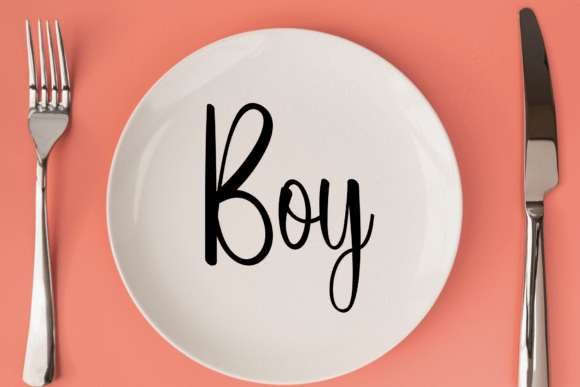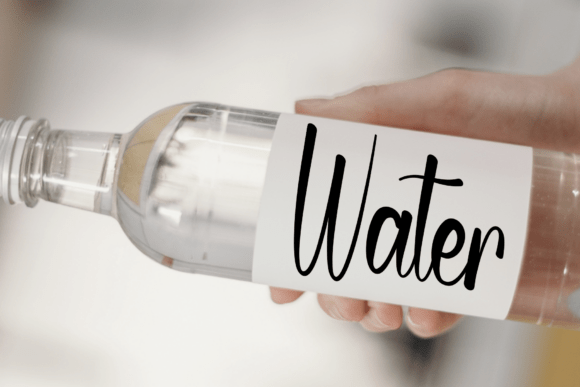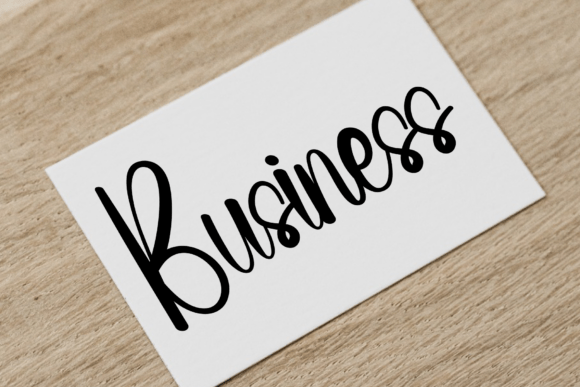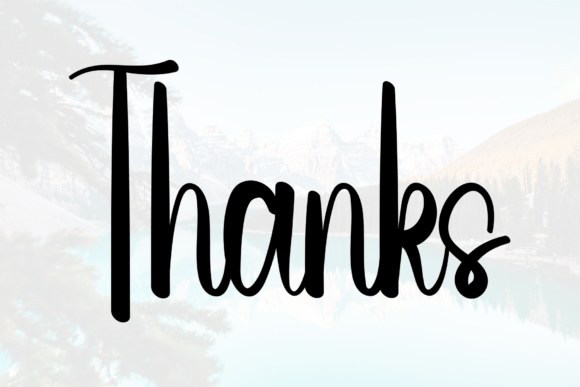
Discover the Charm of Brightwall Font: Elevate Your Designs with a Touch of Heartfelt Perfection
In the world of typography, few fonts manage to capture the essence of warmth and personality as effectively as Brightwall. This charming handwritten font is meticulously crafted to infuse your designs with a sense of heartfelt perfection, making it an ideal choice for a wide range of creative projects. From branding and invitations to social media graphics and beyond, Brightwall offers a unique blend of smoothness and organic flair that can transform your visual communications.
The Characteristics of Brightwall Font
At the heart of Brightwall’s appeal are its smooth strokes and organic lines. Unlike more rigid or mechanical fonts, Brightwall exudes a relaxed atmosphere that feels both approachable and engaging. This is largely due to its handwritten nature, which brings a personal touch to any design. Each letter and word seems to have been written with care, conveying a sense of thoughtfulness and consideration that resonates with viewers.
Versatility in Design Projects
One of the standout features of Brightwall is its versatility. This font isn’t limited to a specific type of project; rather, it can enhance a variety of design endeavors. Here are a few ways you can utilize Brightwall:
- Branding: Establish a personal and welcoming brand identity with Brightwall. Its unique charm can help your brand stand out and feel more relatable to your audience.
- Invitations: Whether you’re designing wedding invitations, birthday party invites, or any other type of event announcement, Brightwall adds a touch of elegance and warmth.
- Social Media Graphics: Elevate your social media presence with eye-catching graphics that incorporate Brightwall. From quotes and announcements to promotional offers, this font can make your content more engaging.
- Packaging: Add a personal touch to your product packaging with Brightwall. It can make your products feel more bespoke and appealing to customers.
Why Choose Brightwall Font?
Choosing Brightwall for your design projects comes with several benefits:
- Unique Aesthetic: In a sea of standard fonts, Brightwall offers a distinctive look that can set your designs apart.
- Emotional Connection: The warmth and personality of Brightwall can help create an emotional connection with your audience, making your message more impactful.
- Easy to Read: Despite its artistic nature, Brightwall remains highly legible, ensuring that your message is communicated clearly.
- Adaptability: It can be used across various platforms and in different sizes without losing its charm or legibility.
How to Use Brightwall Effectively in Your Designs
To make the most of Brightwall, consider the following tips:
- Pair with Complementary Fonts: While Brightwall is beautiful on its own, it can also be paired with other fonts for contrast. Choose fonts that complement its organic feel.
- Play with Colors: Brightwall looks great in a variety of colors. Experiment with different hues to find the perfect match for your design.
- Adjust Letter Spacing: For a more customized look, adjust the letter spacing. This can enhance the overall flow and feel of your text.
Brightwall font offers a refreshing alternative to more traditional typography. Its blend of smooth strokes, organic lines, and heartfelt perfection makes it a valuable addition to any designer’s toolkit. Whether you’re working on a branding project, creating invitations, or developing social media content, Brightwall can add a touch of warmth and personality that resonates with audiences. By incorporating Brightwall into your designs, you can create visually appealing and emotionally engaging content that stands out in a crowded digital landscape.